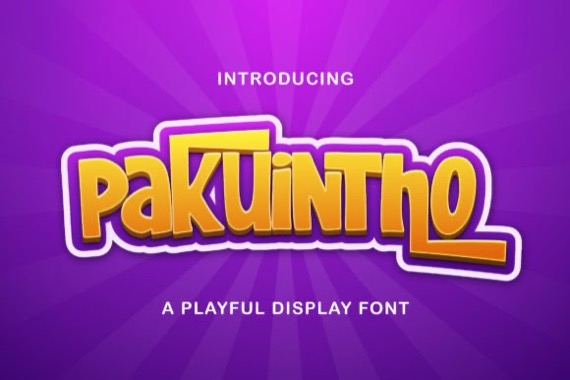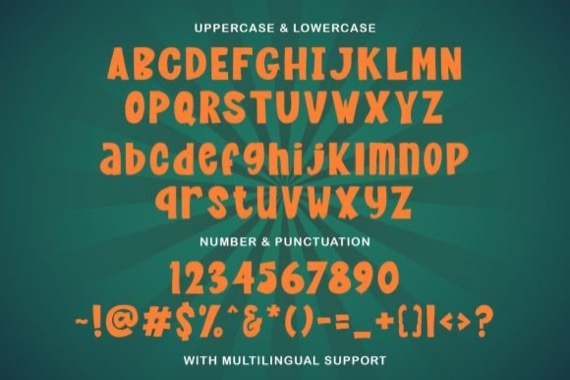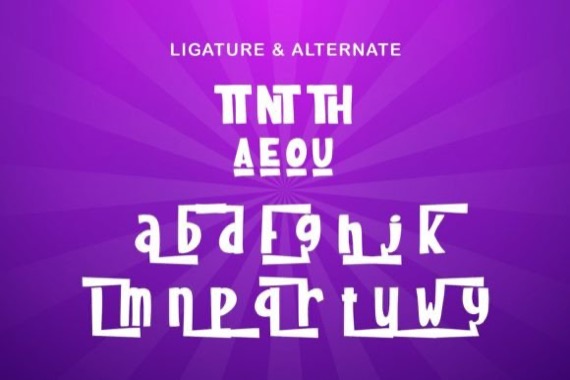
Introducing a new playful and cartoon typeface from StringLabs, Pakuintho is a fun display font. Playful and fresh, this font will be a hit for each of your children or school projects!
Pakuintho Display Font
Designer, Publisher: Stringlabs